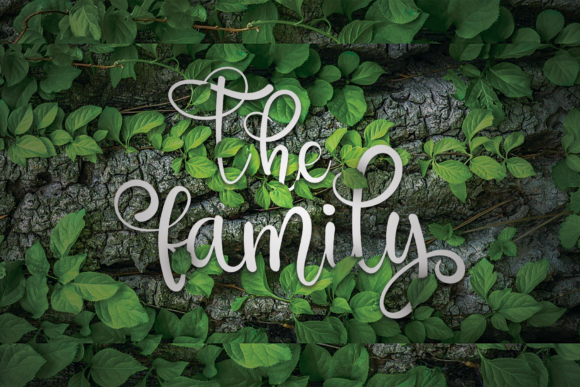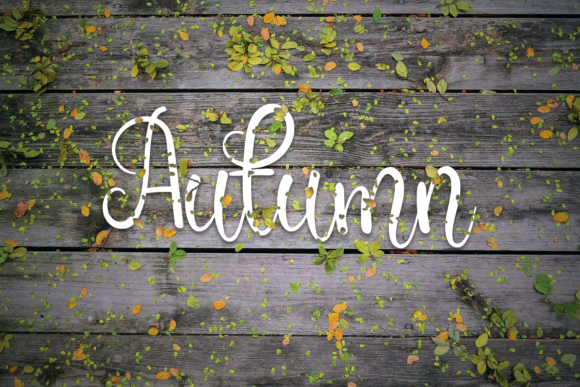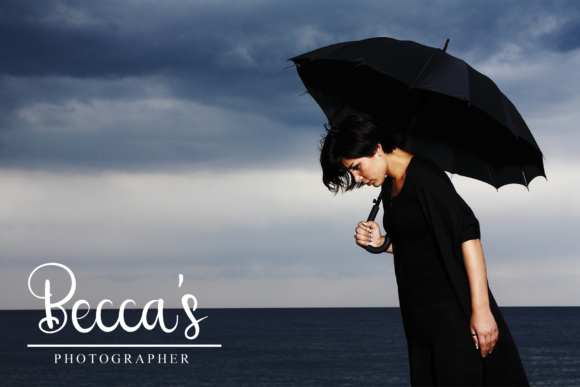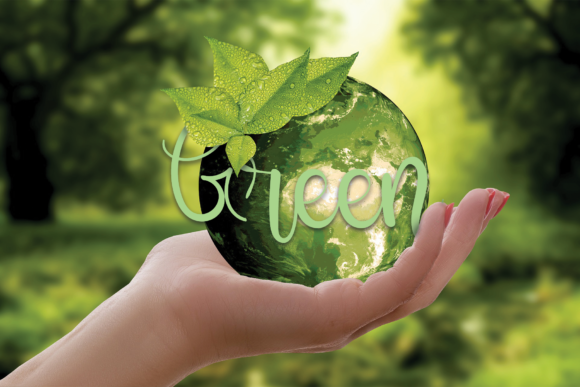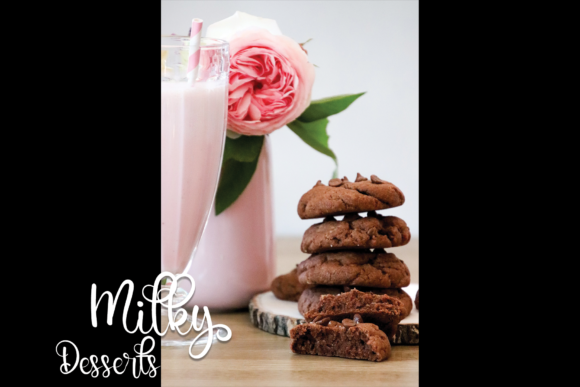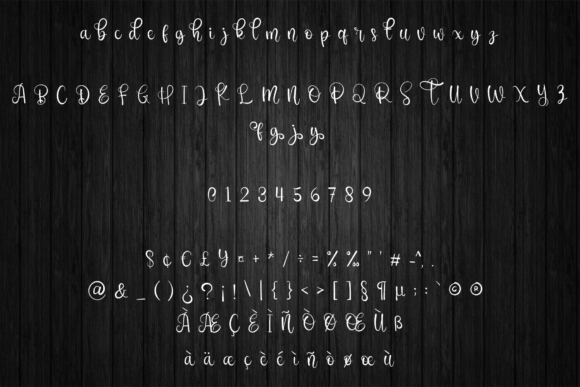
The Family Font
About The Family Font
The Family is a romantic and sweet calligraphy typeface with characters that dance along the baseline. It has a casual, yet elegant touch. Every letter has a unique and beautiful touch, which will make your design come alive!